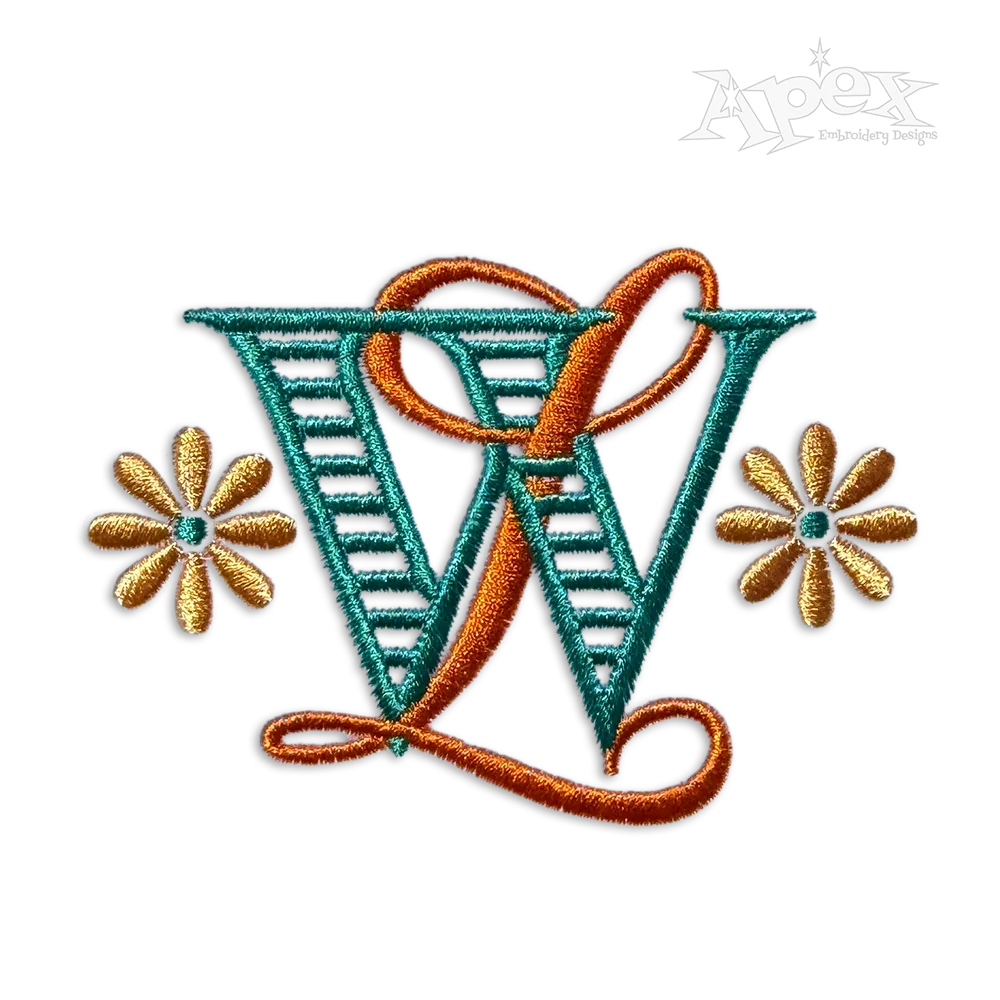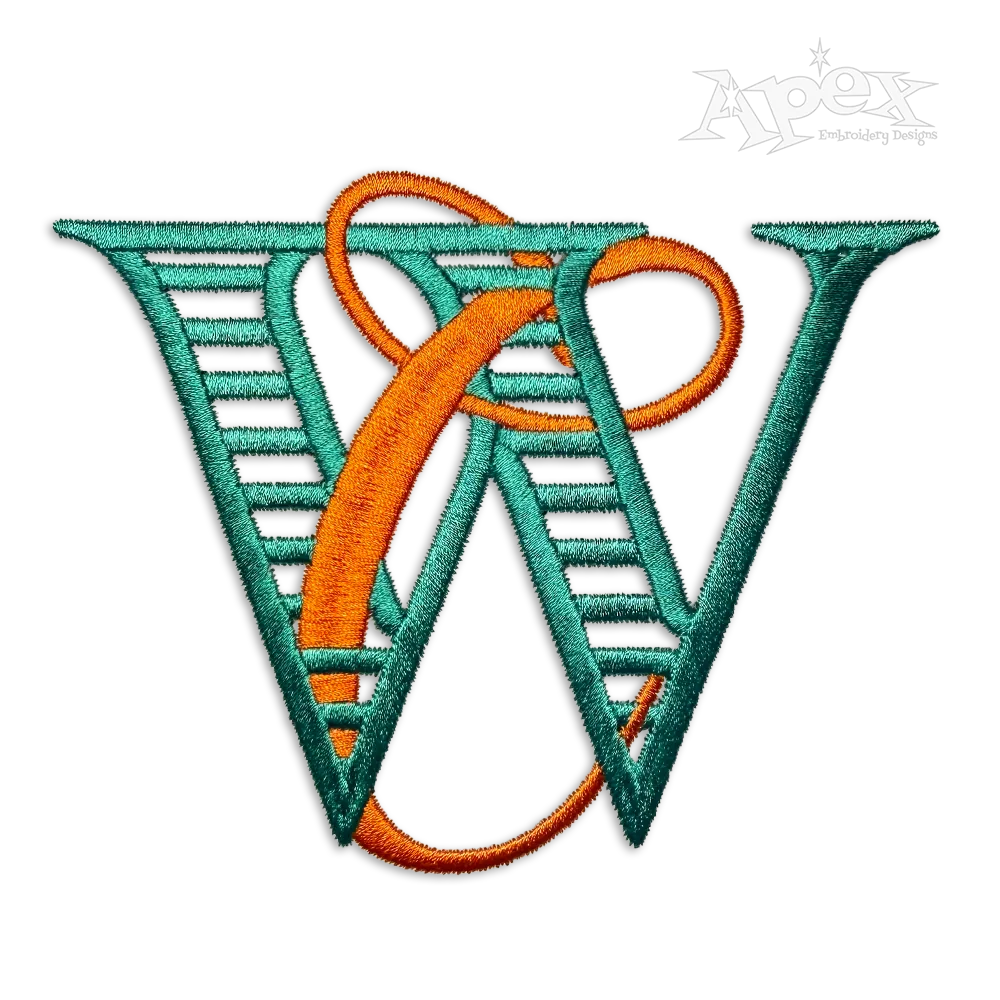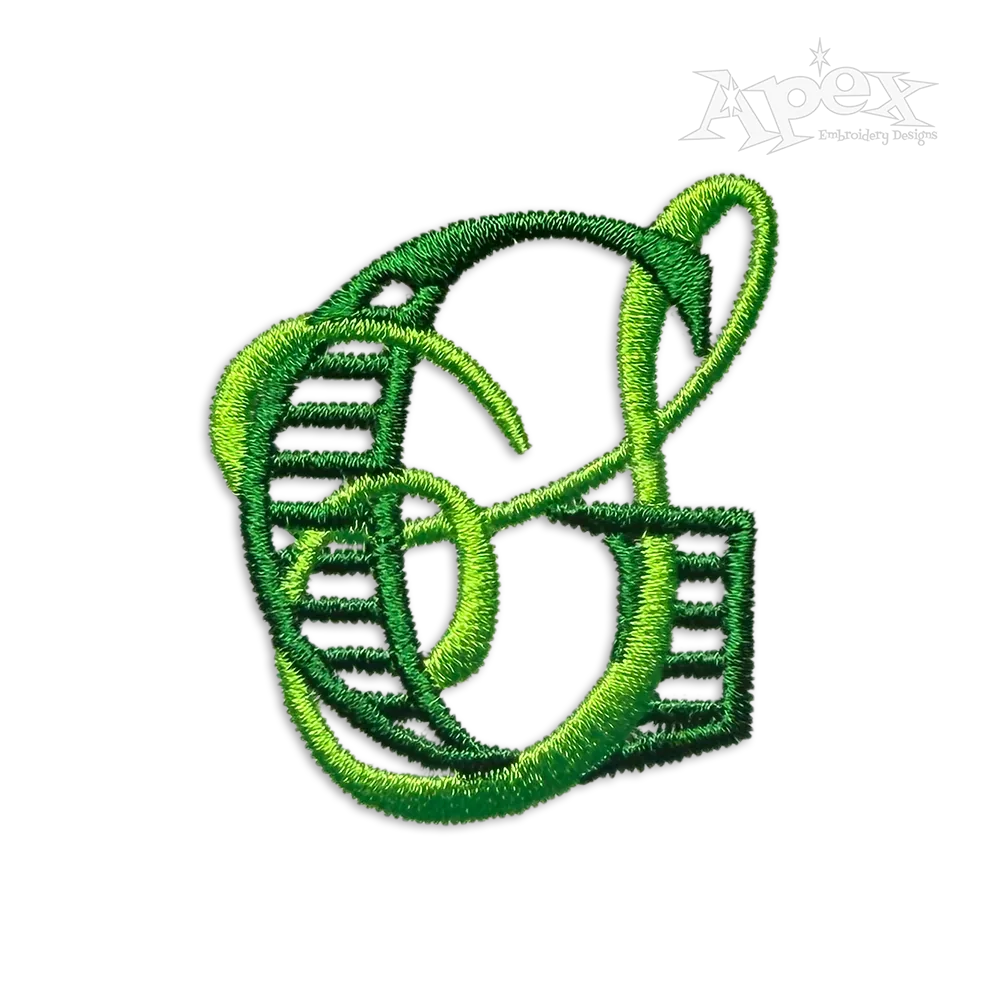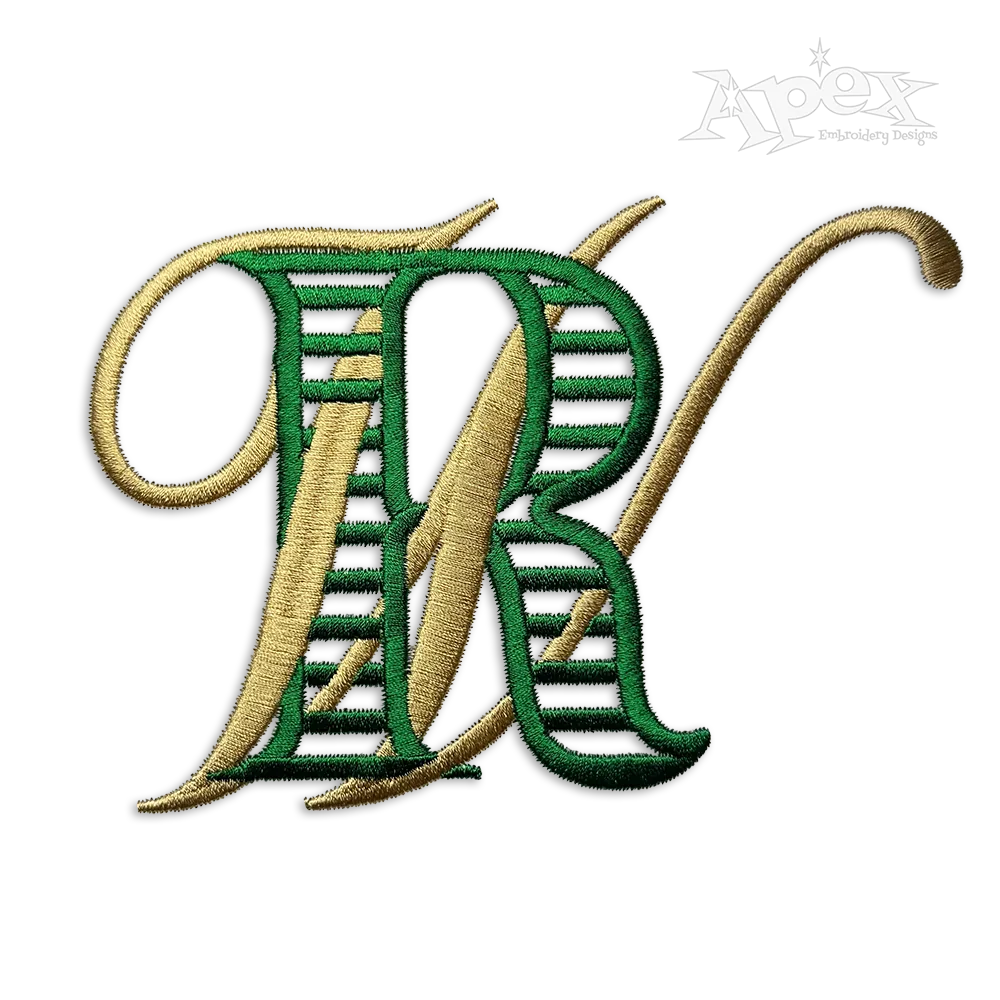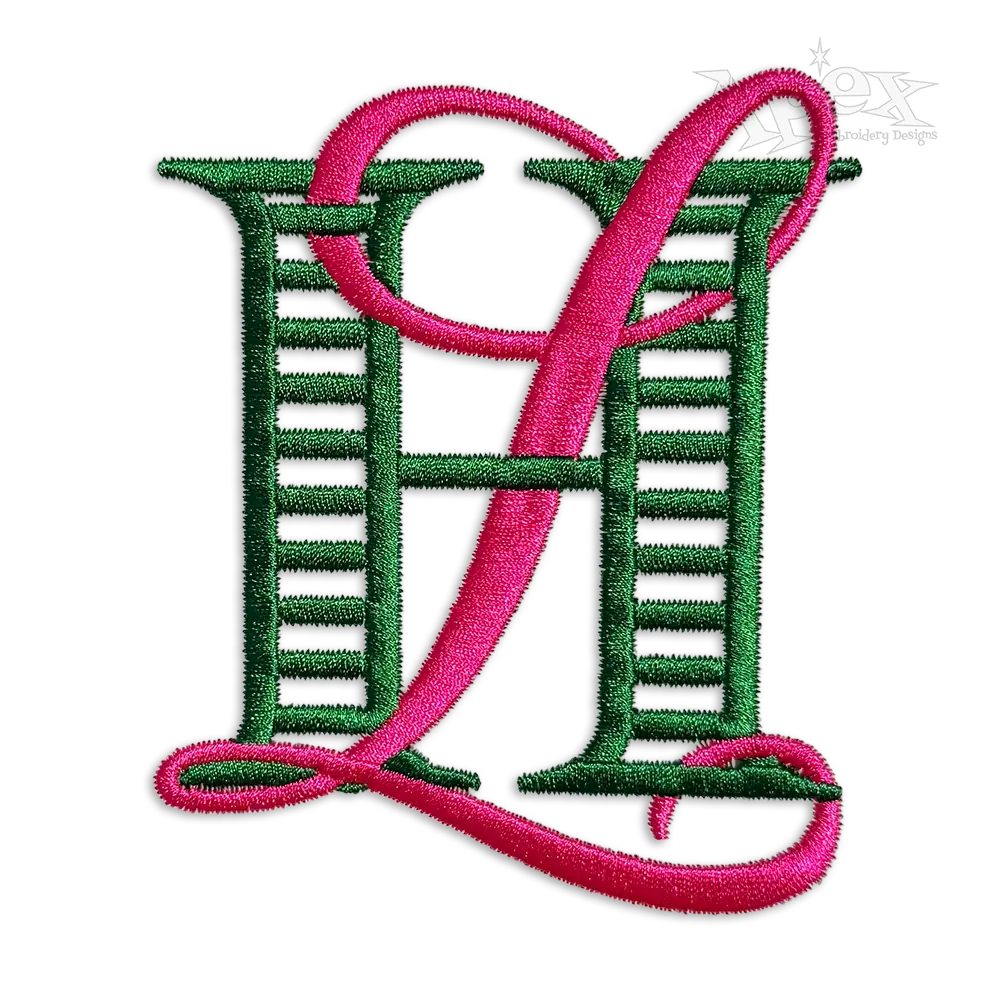
Script Ladders Interlocking Monogram Embroidery Font
Conceived at the intersection of time-honored romance and architectural grace, the Script Ladders Interlocking Monogram captures the true spirit of heirloom embroidery. Inspired by vintage French linens and ornate Victorian ironwork, this design weaves two initials into a singular, unified tapestry. Rather than simply overlapping standard letters, each pairing is thoughtfully integrated with delicate ladder-like bridges and flowing calligraphic flourishes. The result is a luminous, dimensional crest that transforms personalized gifting and bridal trousseaux into bespoke works of textile art.
Every two-letter monogram combination has been meticulously drafted and individually pre-interlocked, eliminating the guesswork of manual letter alignment in your embroidery software. With all 26 alphabets entwined against one another, this comprehensive collection delivers 676 unique dual-letter pairings across three versatile scales:
- 2-inch Height: Ideal for delicate dress cuffs, hemstitched cocktail napkins, and personalized handkerchiefs.
- 4-inch Height: The classic scale for luxury guest towels, plush robe crests, and heirloom pillow shams.
- 6-inch Height: A grand centerpiece dimension created for statement bridal tote bags, duvet covers, and framed anniversary textiles.
Project Ideas for Script Ladders Interlocking Monogram
The graceful, interlocking silhouette lends itself effortlessly to celebrations of love, home, and heritage. Consider stitching this artisan alphabet on:
- Heirloom Table Linens: Frame dining tables with dual-initial monogramming on pure linen runners and mitered dinner napkins.
- Bridal Party Gifting: Embroider the newlyweds’ shared cipher across silk getting-ready robes or ring bearer pillows.
- Bespoke Resort Wear: Elevate woven straw totes, crisp linen button-downs, and poolside cover-ups with a subtle tone-on-tone monogram.
- Luxury Bedding: Center a 6-inch monogram on crisp percale duvet covers or tailored Euro shams for an elevated boutique hotel aesthetic.
- Commemorative Keepsakes: Stitch on vintage silk or velvet and mount inside an archival frame to celebrate a milestone wedding or anniversary.
The interlocking nature of this design commands attention as a balanced, self-contained emblem. For luxury cocktail napkins and finger-tip towels, position the monogram along a 45-degree corner diagonal, keeping at least one to two inches of clearance from hemstitched edges. When adorning tailored bridal robes or sleepwear, position the center of the crest approximately four to six inches down from the shoulder seam over the left chest. For grand bed linens and statement throw pillows, place the design dead-center to allow the sweeping script flourishes and architectural ladder bars to anchor the entire decorative space.
Script Ladders Interlocking Monogram Craft & Letterform Details
What sets the Script Ladders alphabet apart is the rhythmic dialogue between bold calligraphy and airy lattice accents. Each glyph begins with generous, swelling satin stitch curves that taper into needle-fine flourishes. Spanning these sweeping paths are openwork ladder crossbars that introduce negative space, ensuring the motif never feels overly heavy or dense. Under the surface, our master digitizers have mapped intentional, fluid travel paths that drastically reduce jump stitches and thread trimmings. Every intersection is balanced with dedicated pull compensation and varied stitch angles, allowing the embroidery thread to reflect light with a liquid-like sheen while preserving the crisp integrity of fine linen and pique cotton weaves.